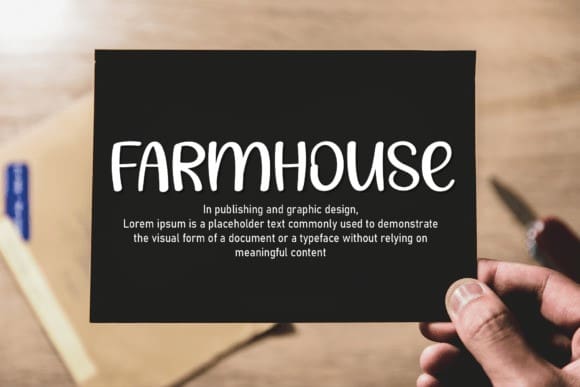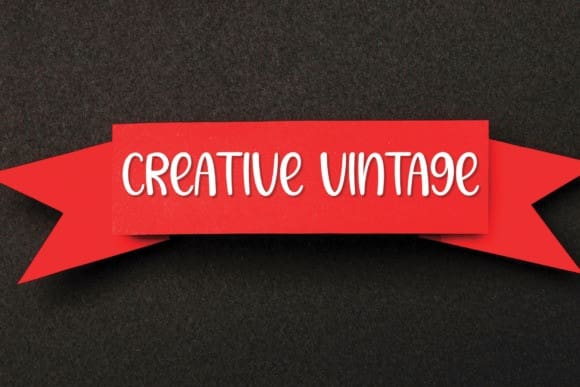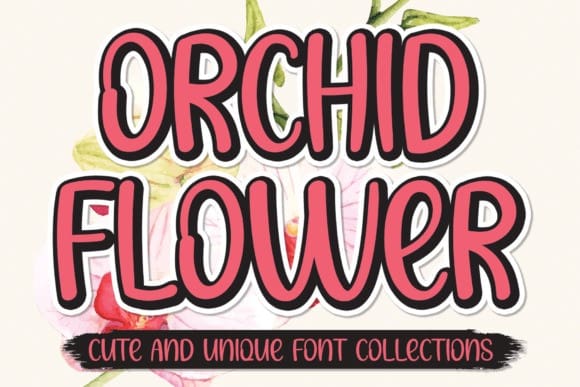
Orchid Flower Font
Orchid Flower Font, is a cool and relaxed handwritten font. This versatile font has a wide spectrum of applications ranging from greeting cards to headlines and is guaranteed to add a neat and natural feel to your next project!